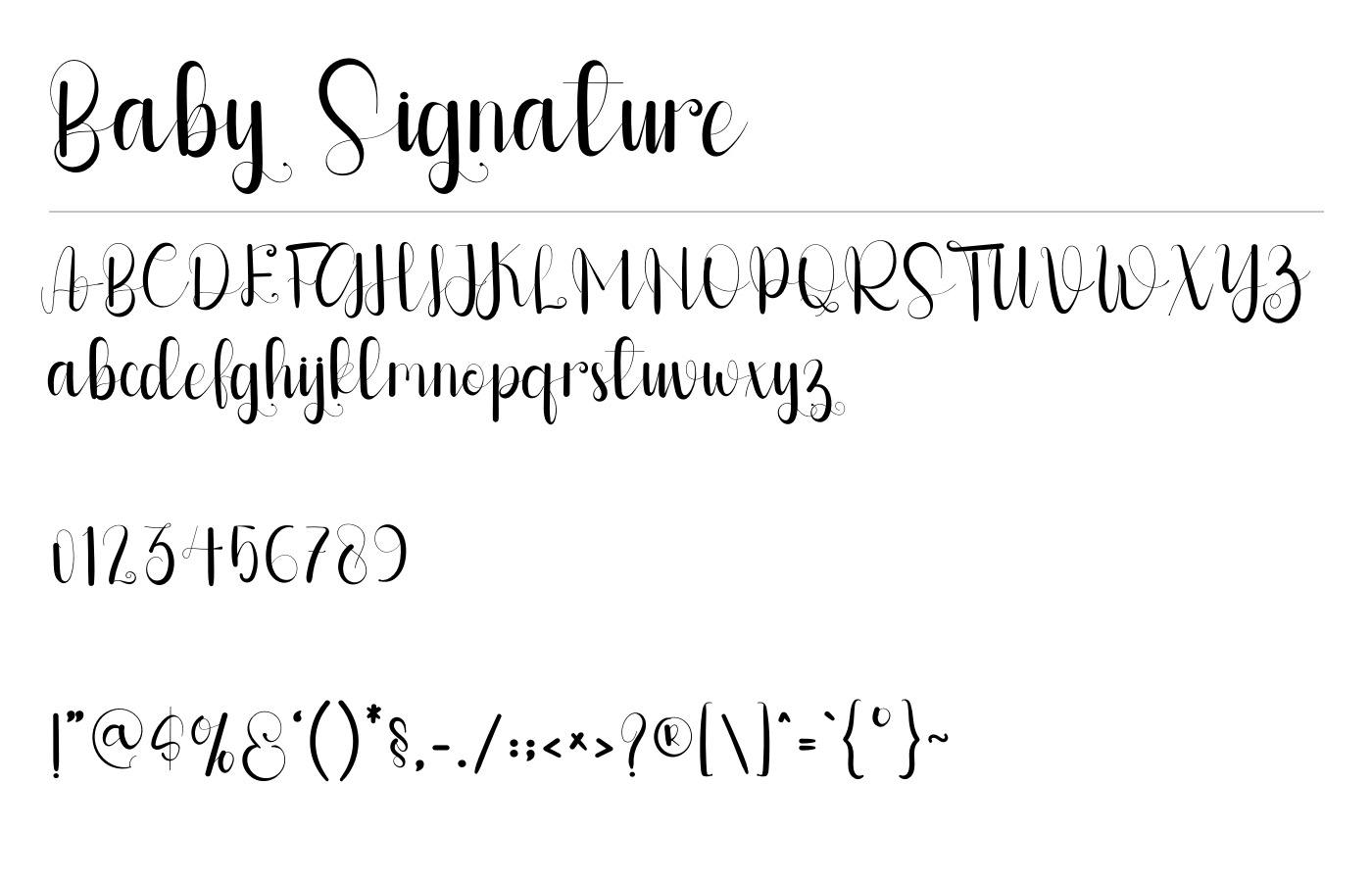
Baby Signature Font is a charming, elegant script typeface with fluid, flowing strokes and delicate swirls, giving it a handwritten, personal feel. Its slender weight and graceful curves make it perfect for invitations, branding, and projects that seek a sophisticated yet warm and approachable tone. This font shines in designs where a stylish, feminine touch is desired, such as fashion logos, wedding materials, and upscale packaging.
Baby Signature Font